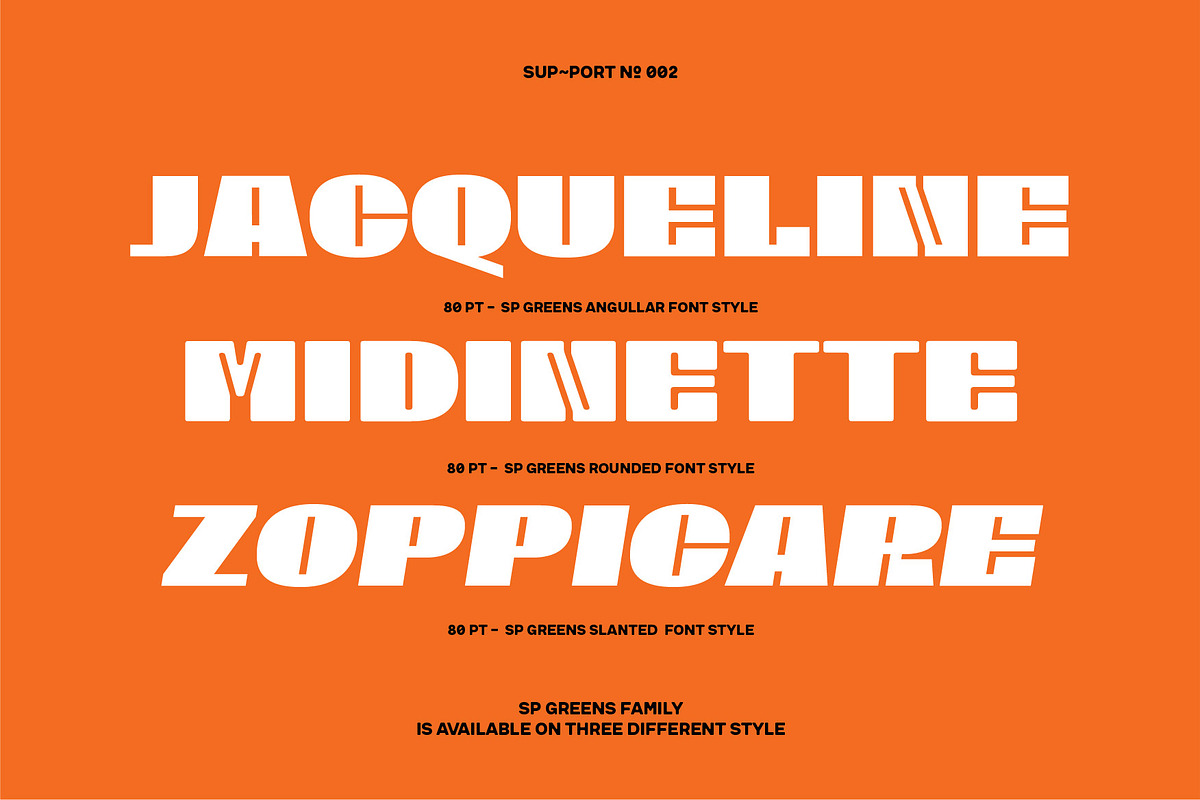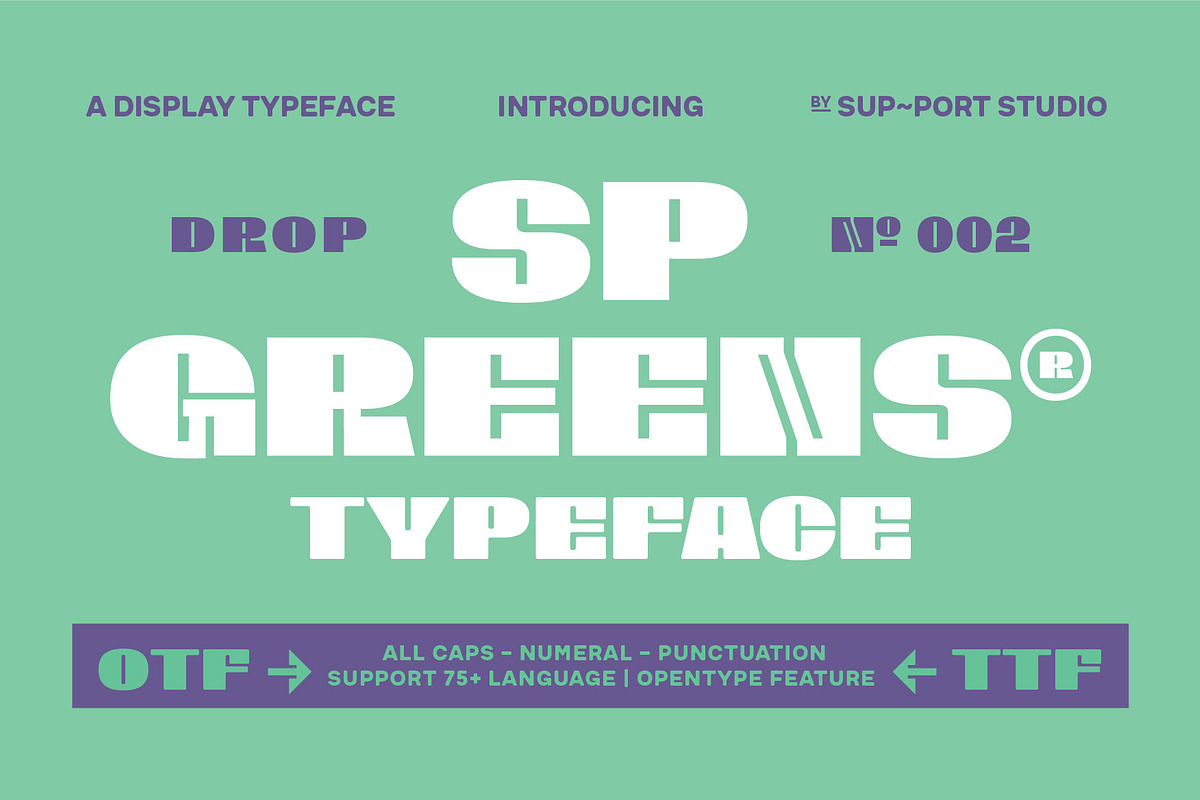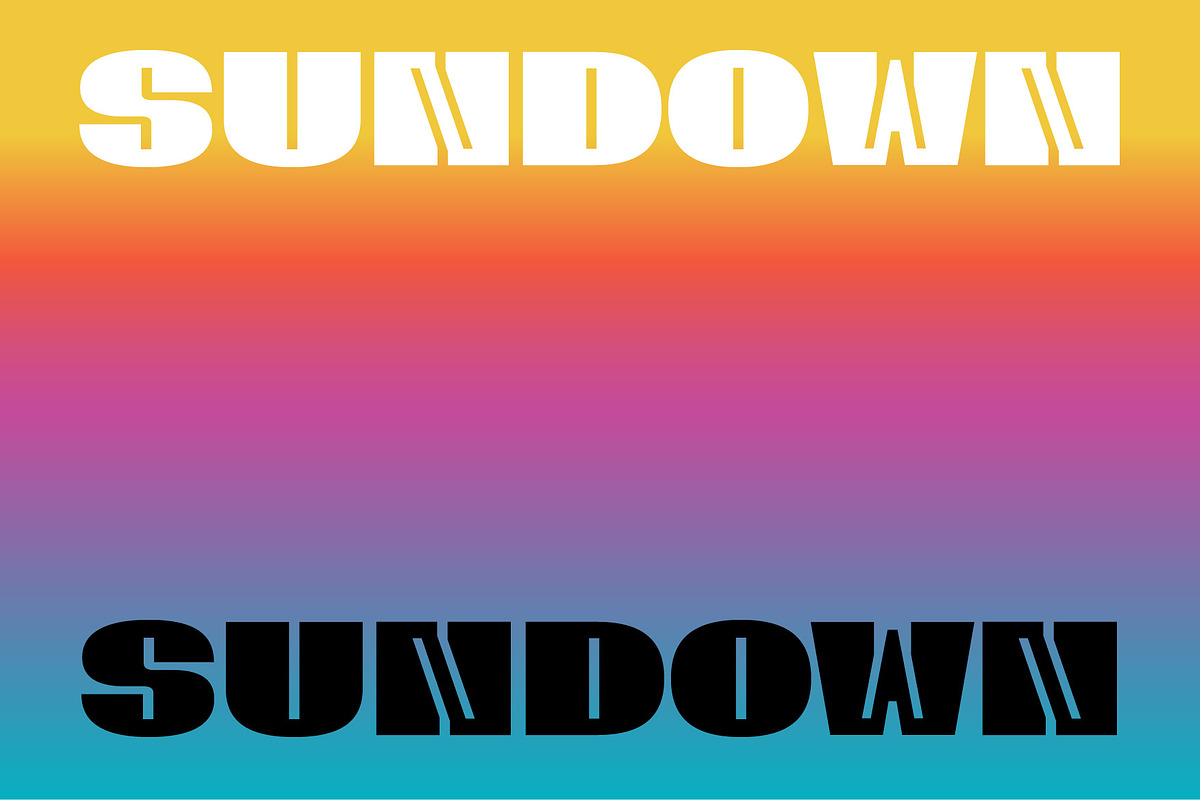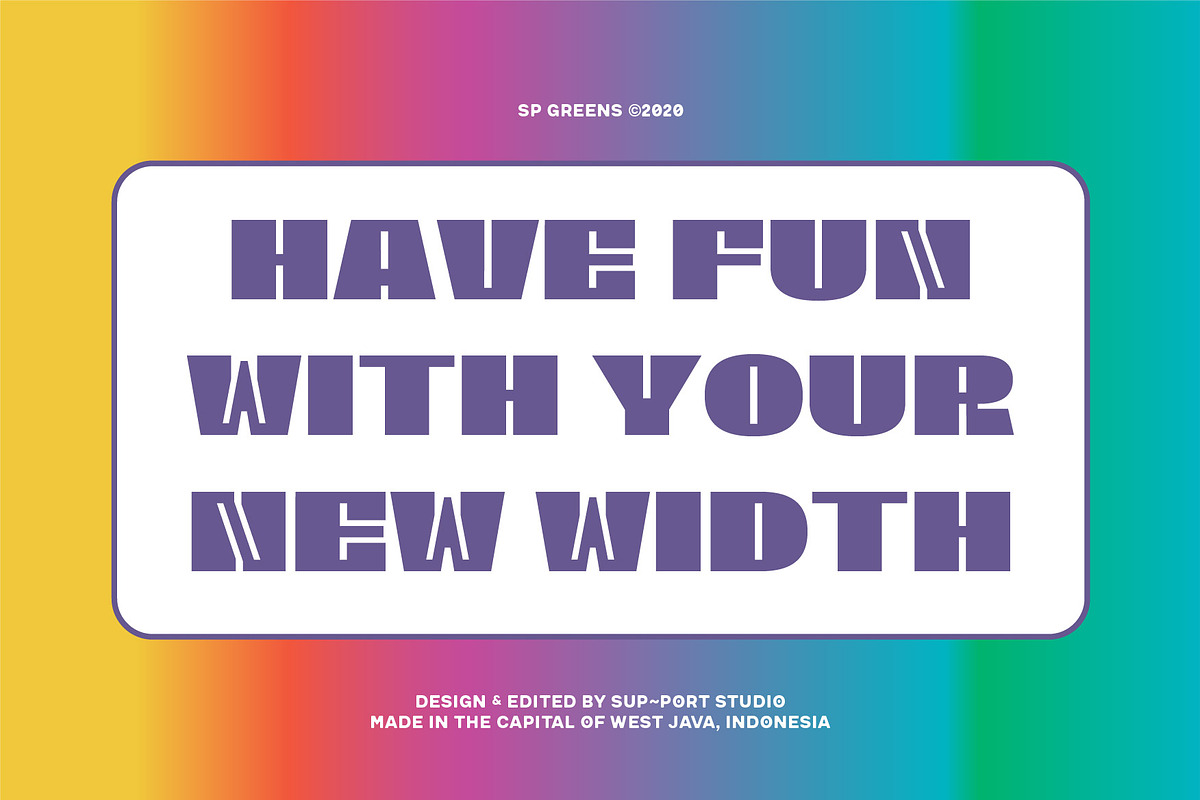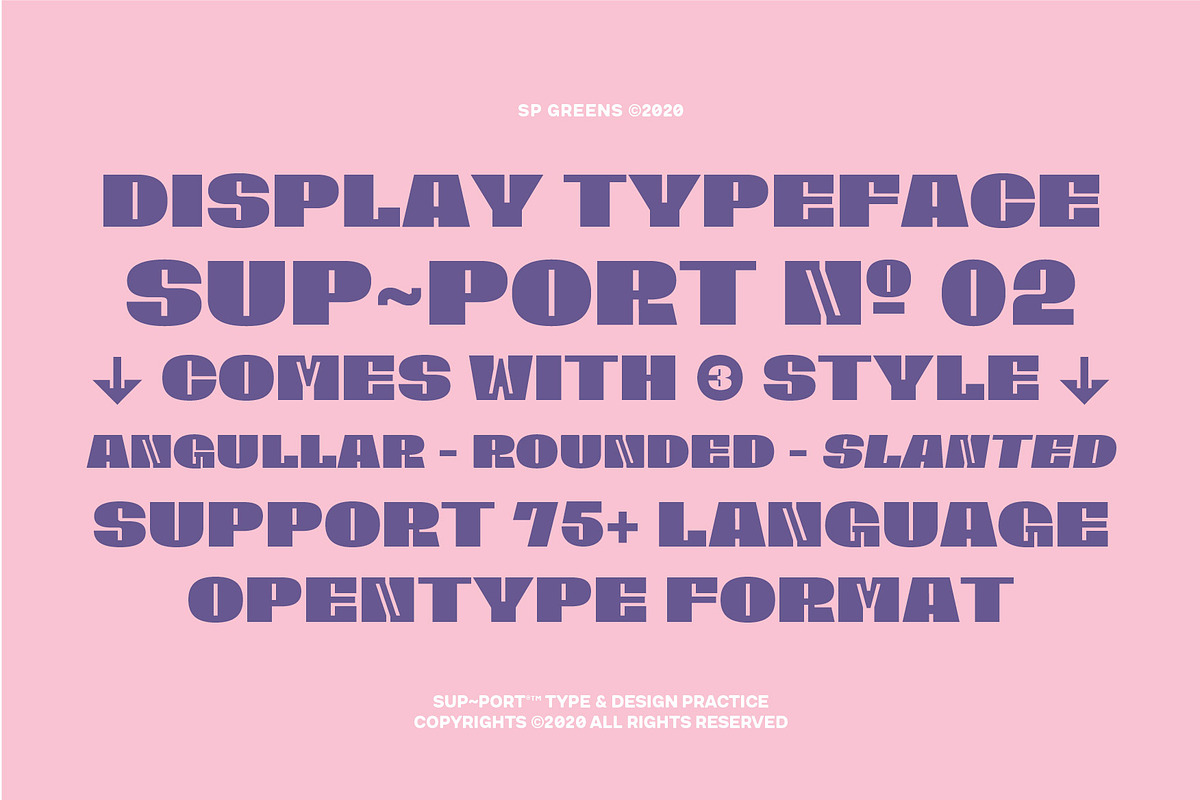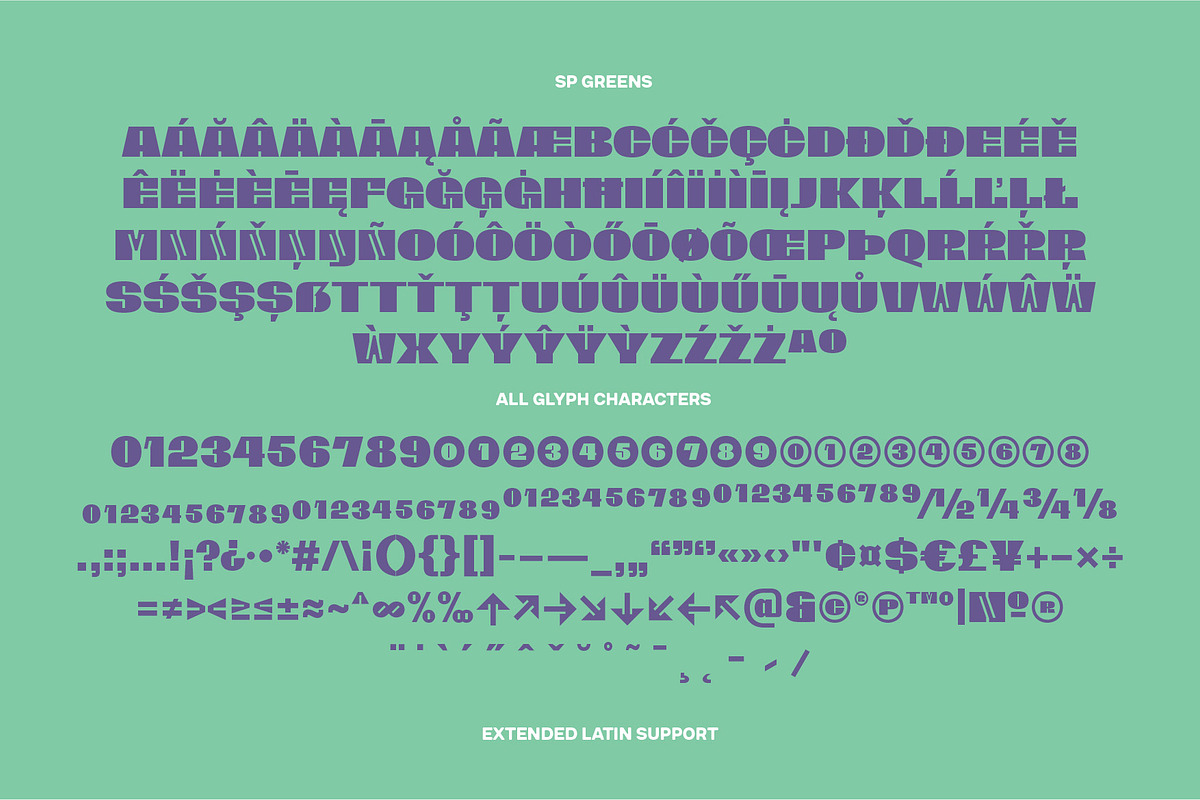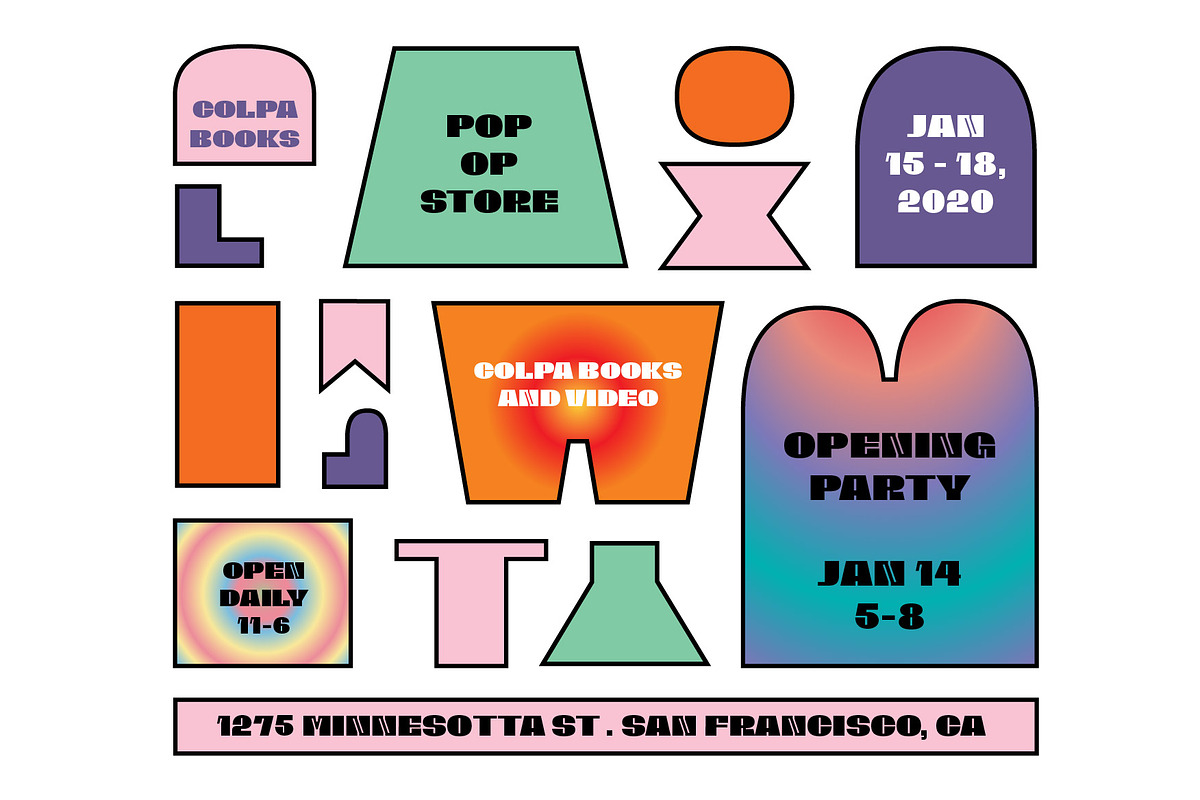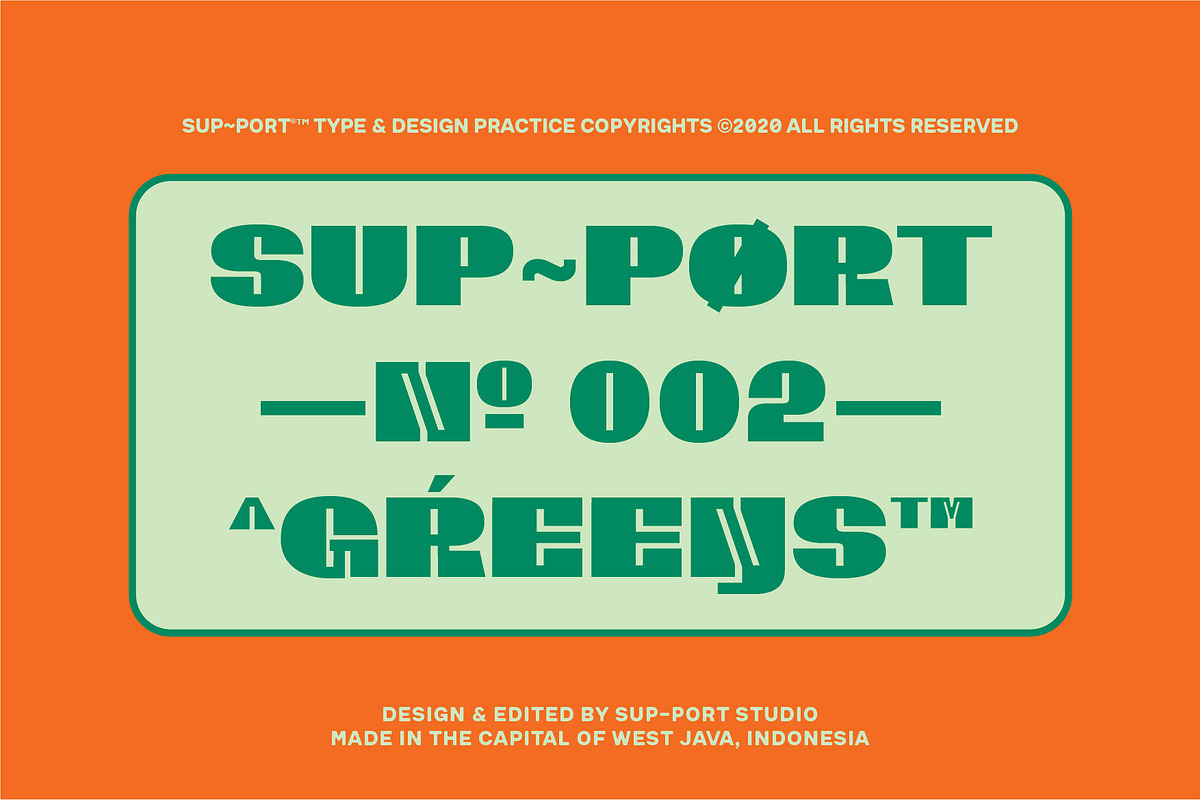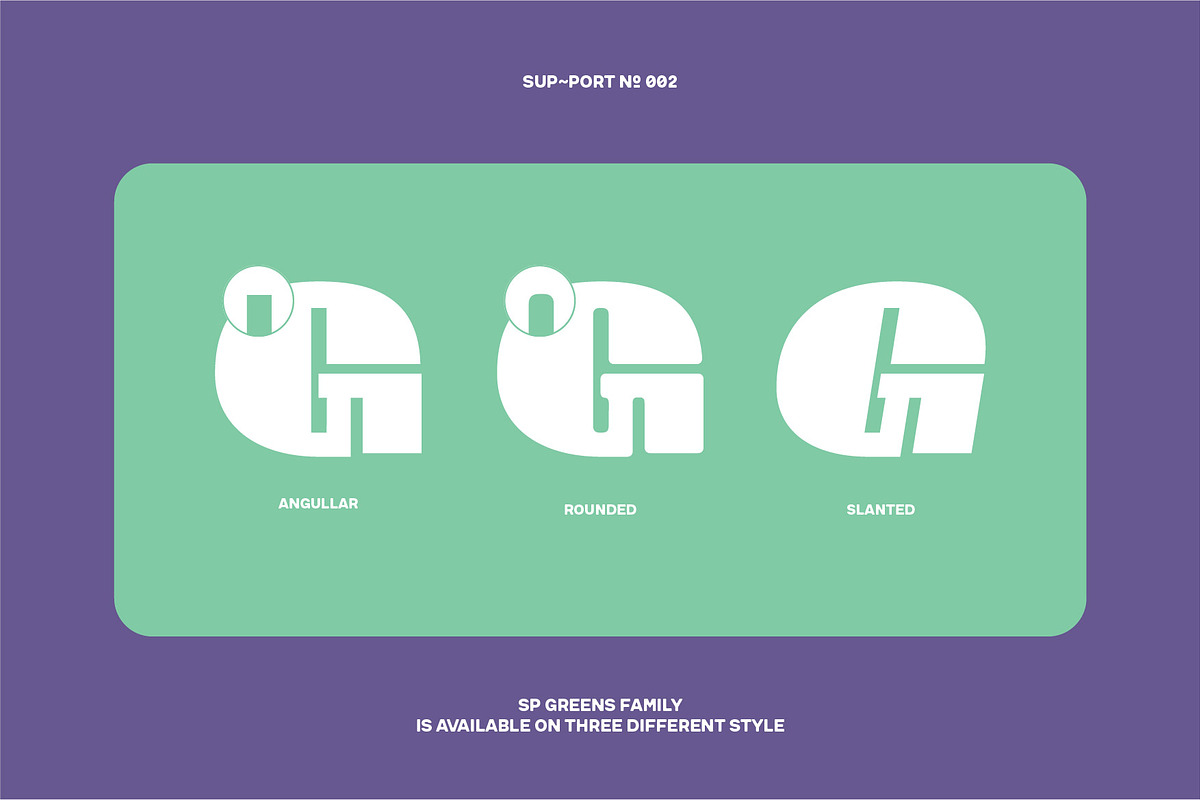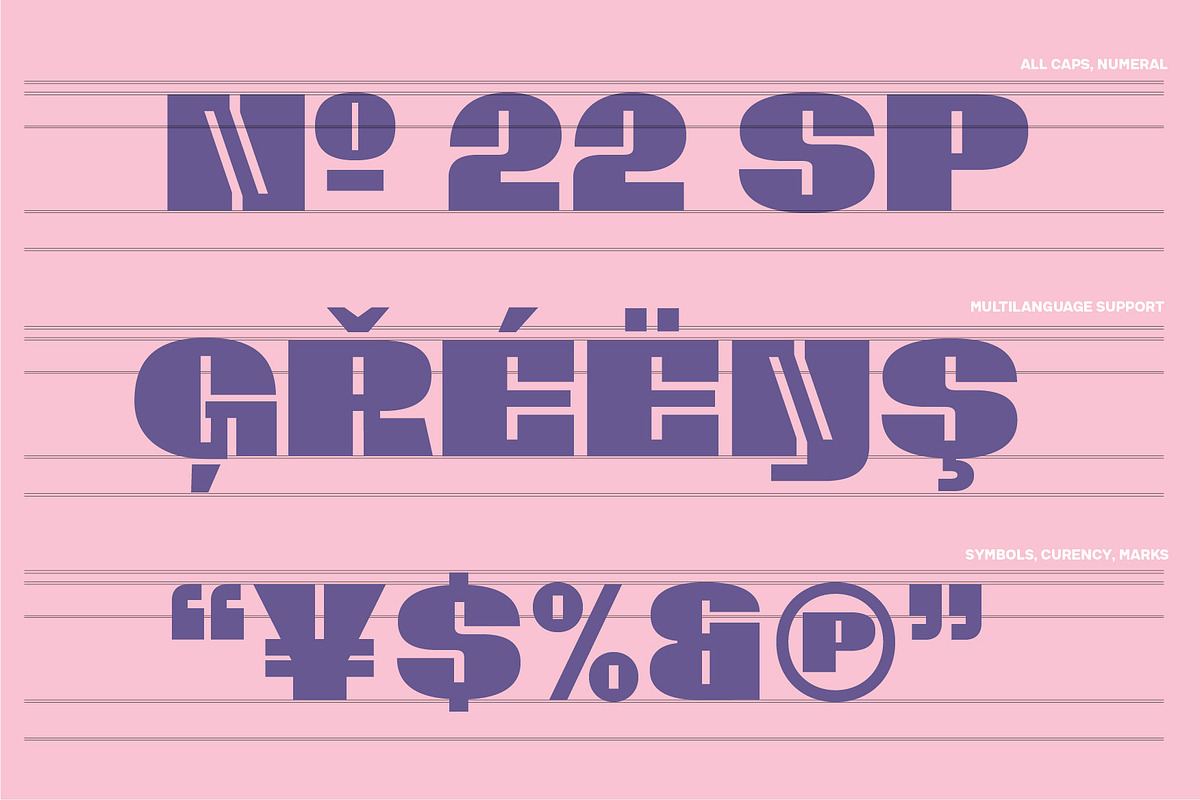
SP GREENS Font Display
SP GREENS is a wide and thick contrast hight font, this font comes with 3 family styles namely Angular (Standard), Rounded, and Slanted, made very carefully and suitable for display needs, not recommended for body text.